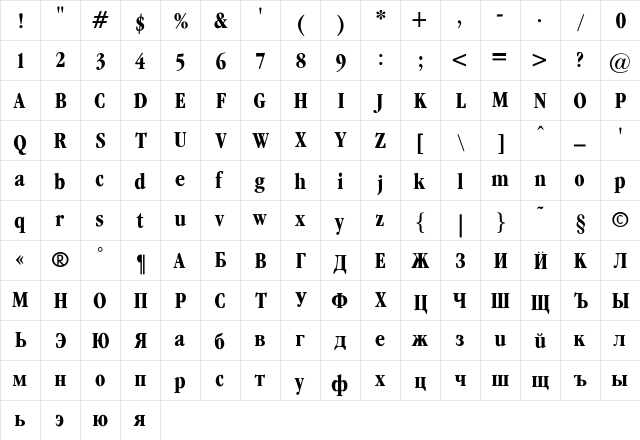
Garamond_Condenced-Bold Regular Font Preview
Garamond_Condenced-Bold Regular
Design Context for Garamond_Condenced-Bold Typeface
Garamond_Condenced-Bold offers clean, dependable letterforms without strong stylistic allegiance, making it a practical choice for designers who need flexibility. The heavy weight commands attention and anchors typographic hierarchies. Its narrow stance lets it pack a punch even in space-constrained designs.